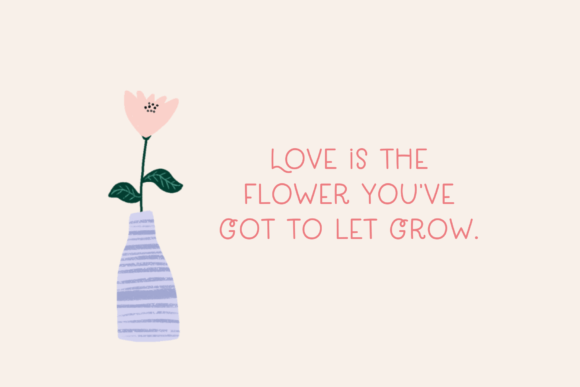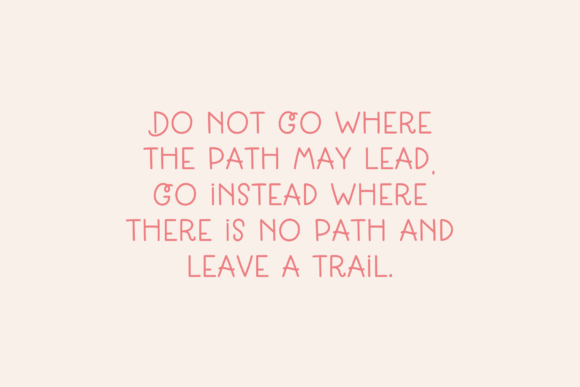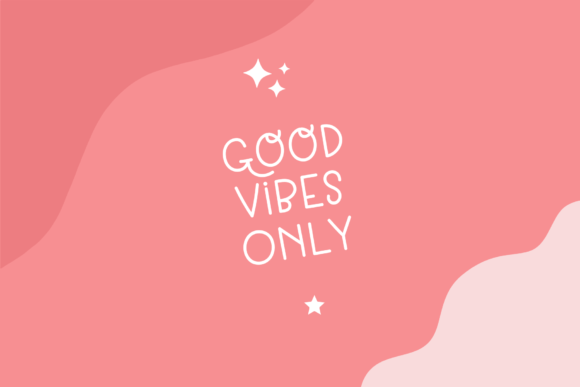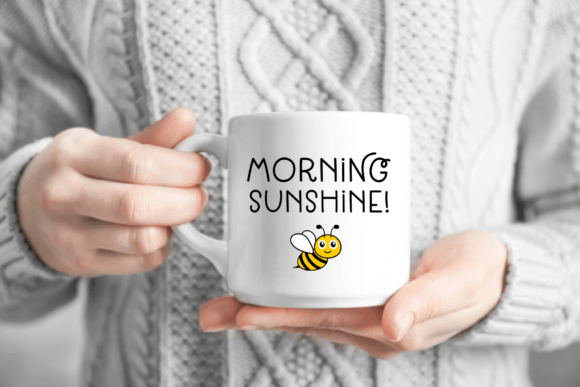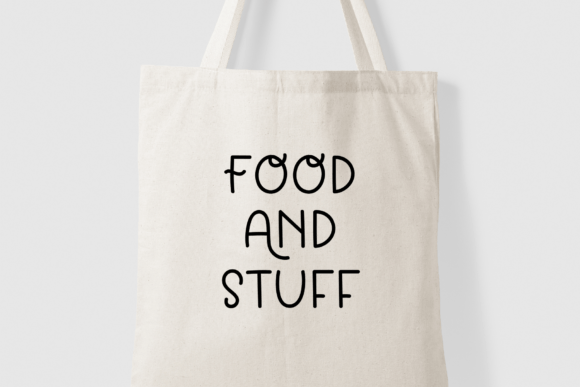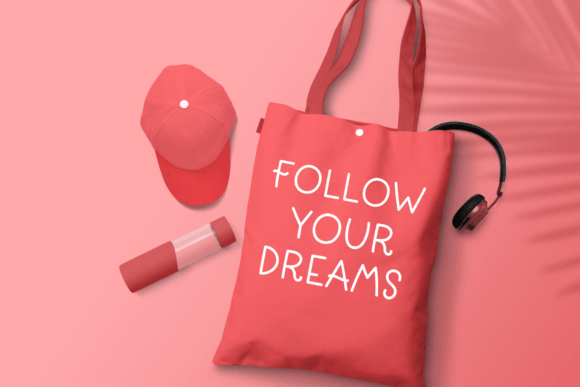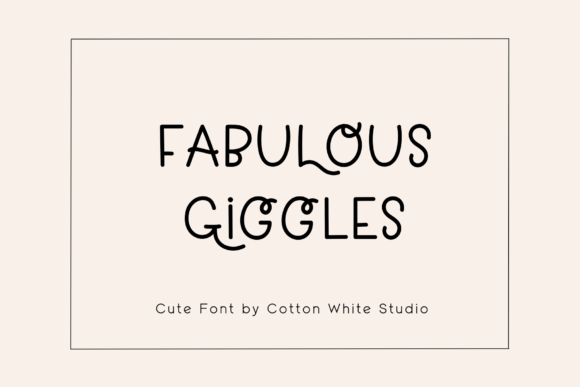
Fabulous Giggles Font: The Ultimate Choice for Cute and Fun Designs
Are you a designer, crafter, or DIY enthusiast looking for a font that can add a touch of cuteness and fun to your projects? Look no further than the Fabulous Giggles font! This adorable font is perfect for creating a wide range of designs, from logos and branding to notebooks, journals, labels, stickers, and more.
What is Fabulous Giggles Font?
Fabulous Giggles is a unique and playful font that is designed to bring a smile to your face. Its cute and bubbly letters are perfect for creating designs that are fun, youthful, and engaging. Whether you’re working on a project for a client or creating something for personal use, Fabulous Giggles is the perfect choice.
Endless Design Possibilities with Fabulous Giggles
The versatility of Fabulous Giggles font is one of its best features. You can use it to create a wide range of designs, including:
- Super cute logos and branding that will make your business stand out
- Adorable notebooks and journals that are perfect for gift-giving or personal use
- Fun and colorful labels and stickers that are great for parties, events, or everyday use
- Engaging blogs and quotes that will capture your audience’s attention
- Breathtaking greeting cards and tea towels that make perfect gifts
- Stunning apparel, pillows, and mugs that will add a touch of personality to any room
- Delightful toys and posters that are perfect for kids’ parties or playrooms
- Precious baby clothing and picture books that make heartwarming gifts
Why Choose Fabulous Giggles Font?
So, why should you choose Fabulous Giggles font for your next project? Here are just a few reasons:
- Cute and Fun Design: Fabulous Giggles font is designed to be cute and fun, making it perfect for projects that require a playful touch.
- Highly Versatile: You can use Fabulous Giggles font for a wide range of projects, from logos and branding to crafts and DIY projects.
- Unique and Eye-Catching: Fabulous Giggles font is unique and eye-catching, making it perfect for projects that need to stand out.
Tips for Using Fabulous Giggles Font
Here are a few tips for using Fabulous Giggles font in your designs:
- Pair it with Other Fonts: Fabulous Giggles font pairs well with other fonts, so feel free to experiment with different combinations.
- Use it for Headlines and Titles: Fabulous Giggles font is perfect for headlines and titles, where you want to grab the reader’s attention.
- Add Some Color: Fabulous Giggles font looks great with bright and bold colors, so don’t be afraid to add some color to your designs.
- Experiment with Different Sizes: Fabulous Giggles font looks great in different sizes, so experiment with different sizes to find the one that works best for your project.